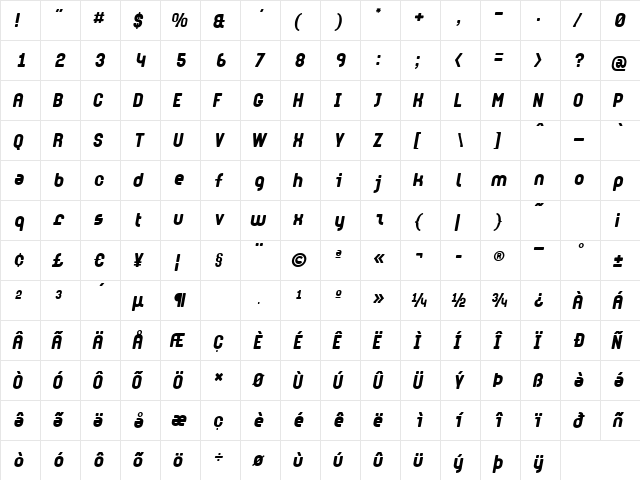
GAzole BoldOblique
Design Context for GAzole Typeface
GAzole offers clean, dependable letterforms without strong stylistic allegiance, making it a practical choice for designers who need flexibility. Its italic angle brings a sense of urgency and motion to the letterforms. Its bold stroke weight gives it real presence on the page.
Pro Tip: Try GAzole for annotation and caption copy alongside an upright companion — the contrast in angle creates a dynamic but ordered typographic system.